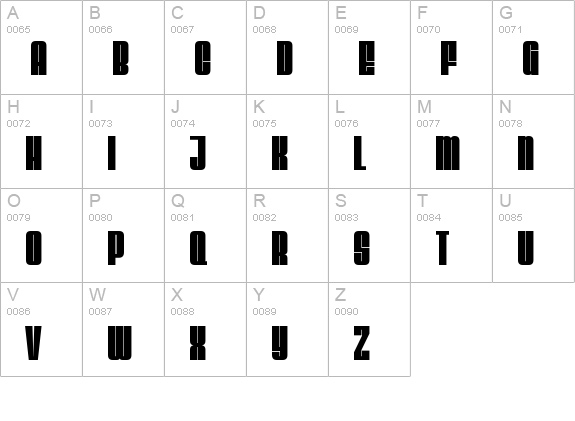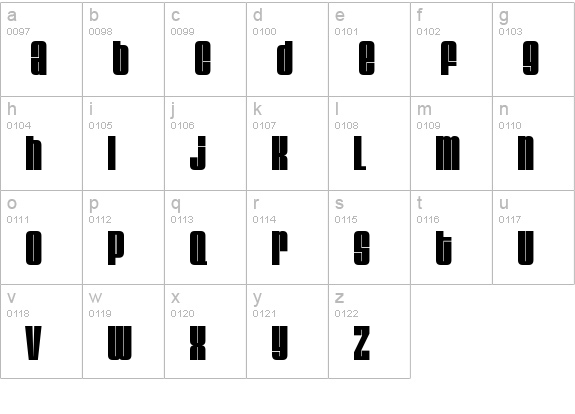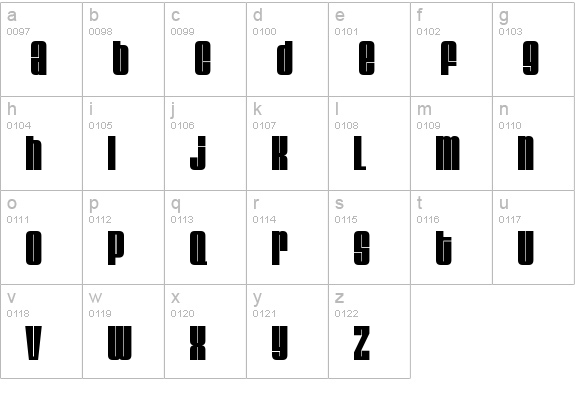
Velvenda Megablack Font Details
Introducing Velvenda Megablack, a strikingly bold and captivating font that exudes a sense of sophistication and power. This font stands out from the crowd with its unique and commanding presence, making it the perfect choice for those who want to make a lasting impression. Velvenda Megablack showcases a sleek and modern design, with its sharp and angular letterforms that effortlessly catch the eye. Its thick and heavy strokes add depth and intensity to each character, creating a visually impactful display of text. This font is not only visually appealing but also incredibly versatile. Whether you're designing a logo, creating eye-catching headlines, or crafting attention-grabbing posters, Velvenda Megablack will elevate your work to new heights. But what makes Velvenda Megablack even more remarkable is that it is freely available to download at FontsMarket.com. That's right, you can enjoy the bold and captivating qualities of this font without any cost. This makes it an ideal choice for both personal and commercial projects, allowing you to unleash your creativity without limitations. With its free availability, Velvenda Megablack offers a unique opportunity to enhance your design projects without breaking the bank. Whether you're a seasoned designer or just starting out, this font will undoubtedly become a valuable asset in your design toolbox. So why wait? Download Velvenda Megablack today and experience the power and elegance that this font brings to your creations. Let your imagination run wild and watch as your designs come to life with the bold and captivating presence of Velvenda Megablack.